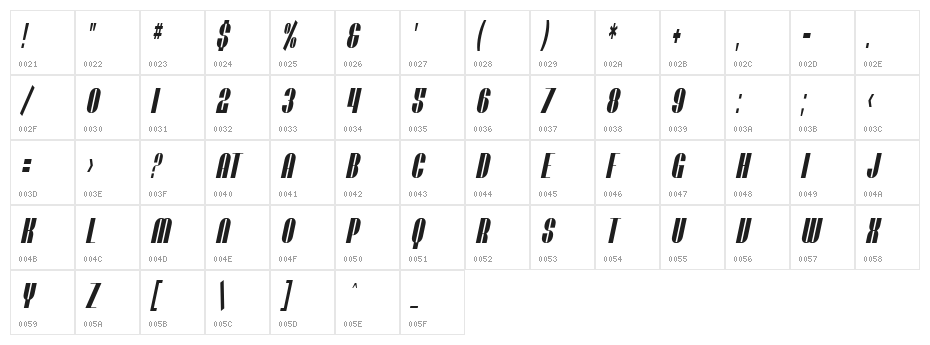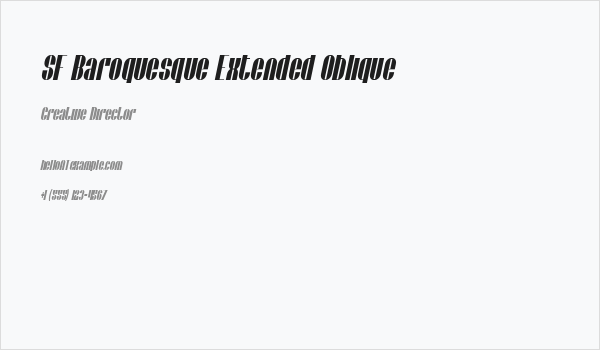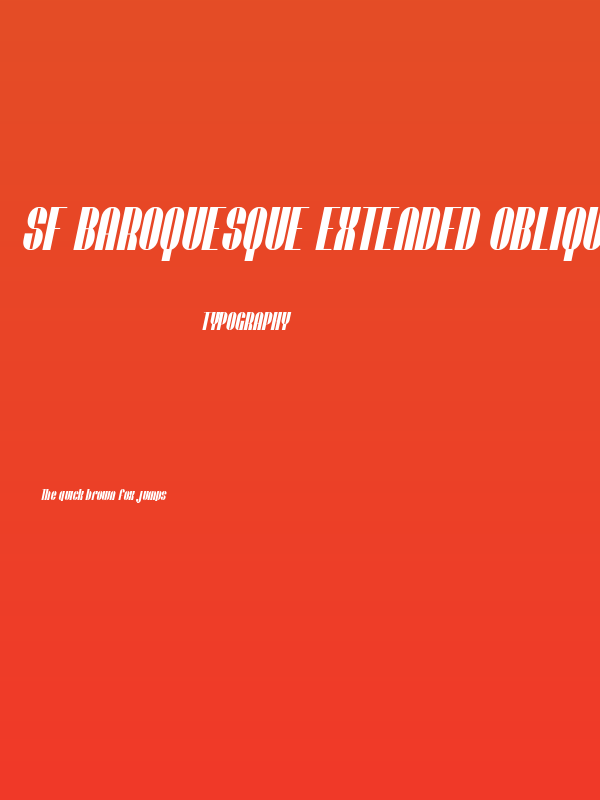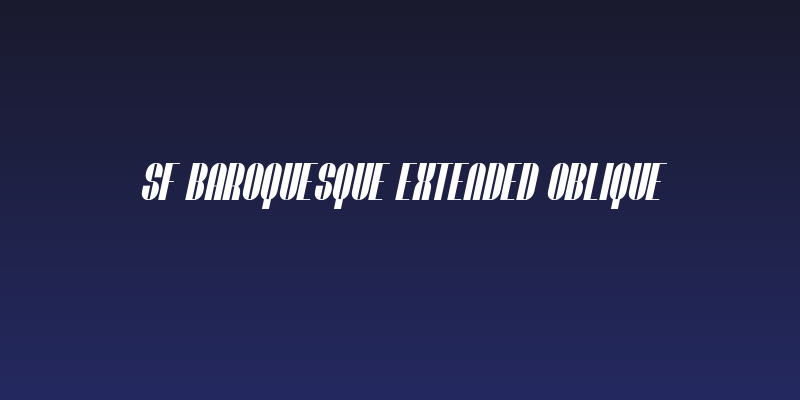
SF Baroquesque Extended Oblique Font
SF Baroquesque Extended Oblique Description
This font exhibits a bold and dynamic style with an oblique orientation, giving it a sense of movement and energy. The characters are elongated and condensed, creating a striking visual impact. The uppercase and lowercase letters maintain a consistent slant, enhancing the overall cohesiveness of the design. The numbers and special characters follow the same stylistic approach, ensuring uniformity across all elements. The high contrast in stroke thickness adds to the dramatic appearance, making it suitable for attention-grabbing designs.
| Proposed Projects | Ideal for posters, headlines, branding, and any project requiring a bold, dynamic typeface. |